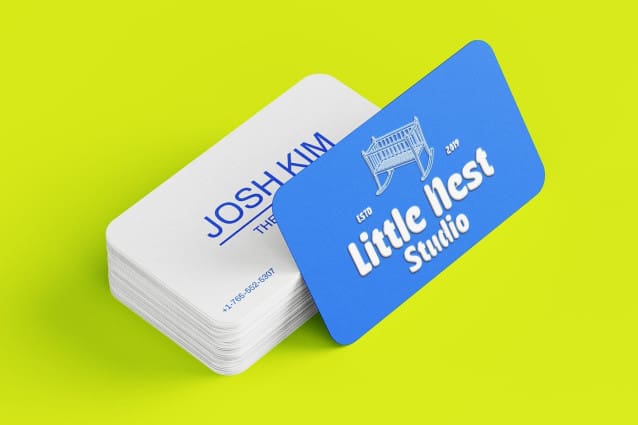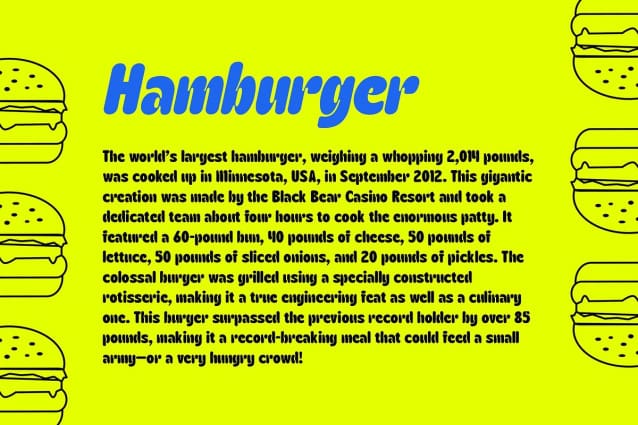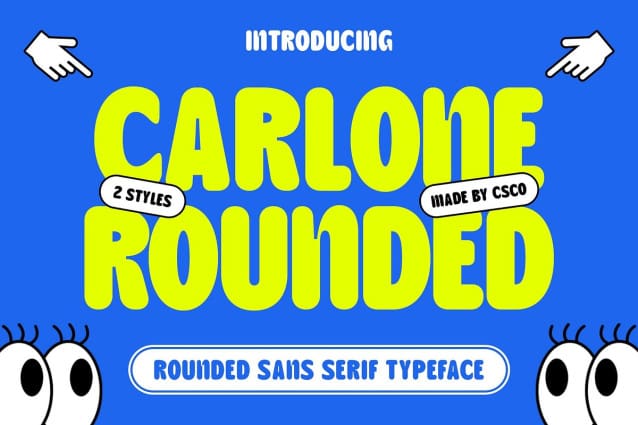
Carlone Rounded Font
Carlone Rounded Font is a modern sans-serif font that stands out with its thick, rounded forms. The bold, solid strokes create a striking visual impact, while the rounded edges introduce a sense of warmth and friendliness. This combination makes the font both powerful and approachable, perfect for designs that aim for a balance between professionalism and personality. Whether you’re designing for branding, digital interfaces, or advertising, Carlone Rounded ensures a contemporary look that is both strong and welcoming.
A Friendly Yet Bold Design The key characteristic of Carlone Rounded is its boldness, enhanced by the soft, rounded edges that soften the otherwise strong appearance. This fusion allows it to maintain an impactful presence while remaining approachable. It is ideal for projects that want to project confidence and clarity while also conveying a friendly and inviting tone. Its clean, modern lines make it a versatile choice for a variety of applications, from corporate identities to more casual and youthful designs.
Perfect for Branding and Digital Interfaces Carlone Rounded excels in environments where visibility and readability are essential, such as in branding, advertising, and digital interfaces. Its boldness makes it easy to spot and recognize, while the rounded design keeps the tone approachable and human.